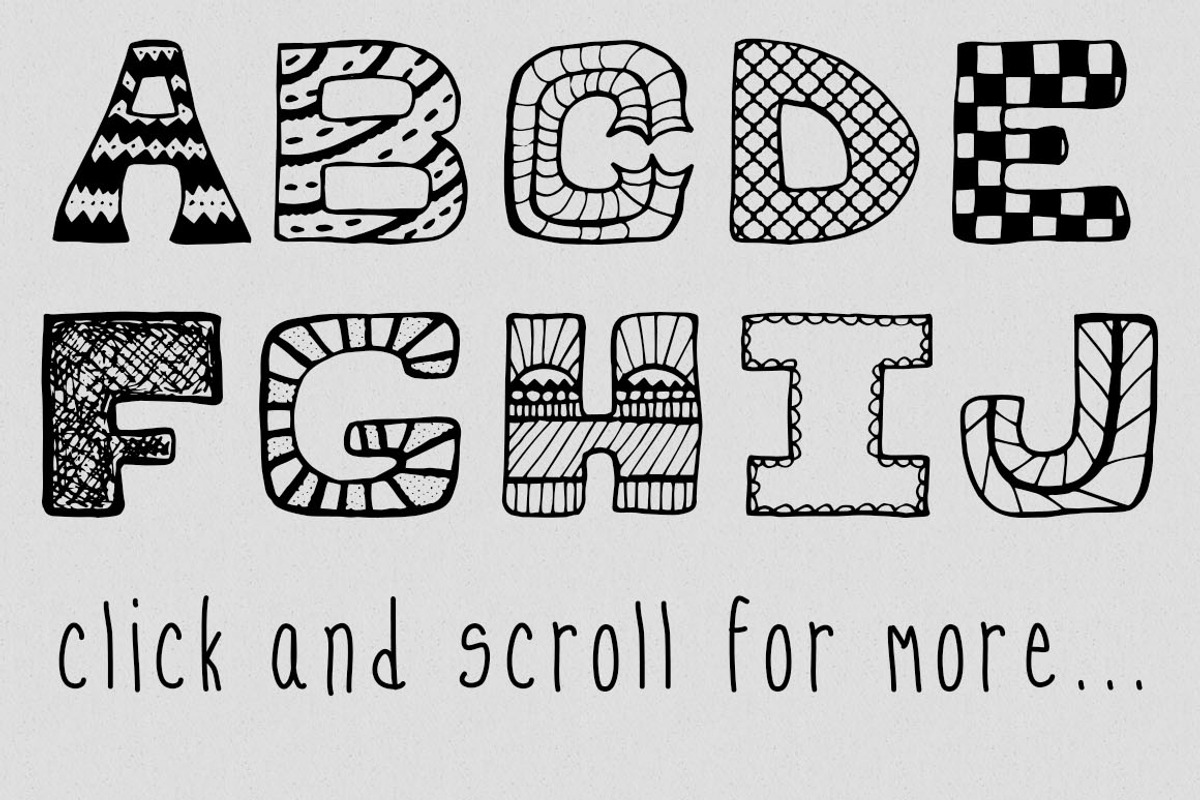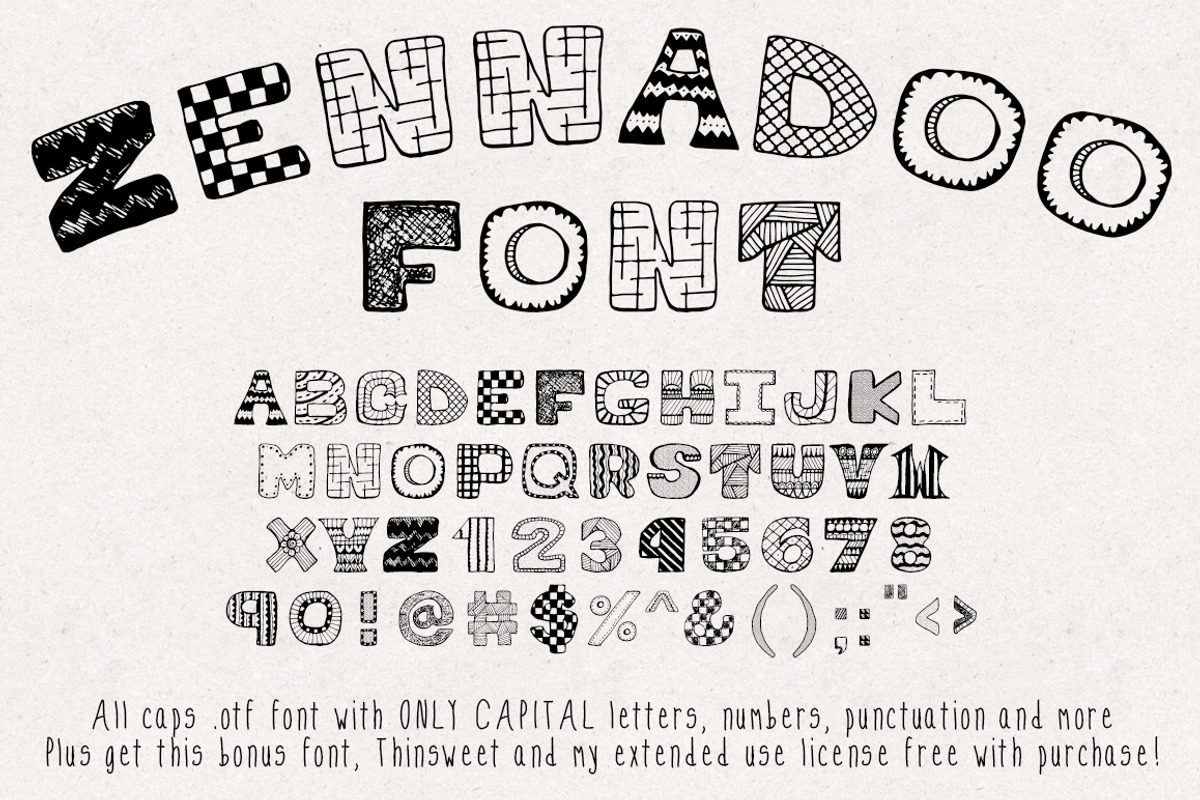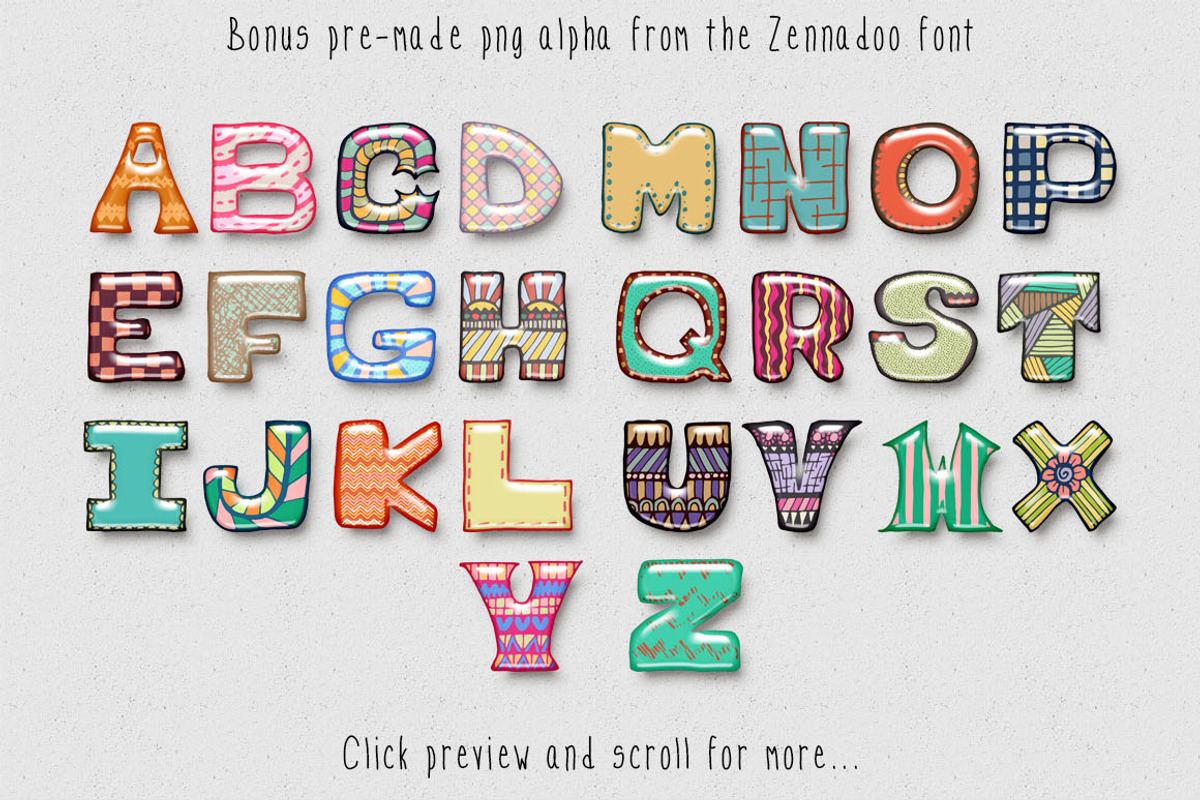
Zennadoo Font
Zennadoo Font by Heather Green Designs is a font selected for branding, posters, packaging, typography.
Why Zennadoo Font is worth a look
Zennadoo Font by Heather Green Designs fits naturally into Branding, posters, packaging, typography.